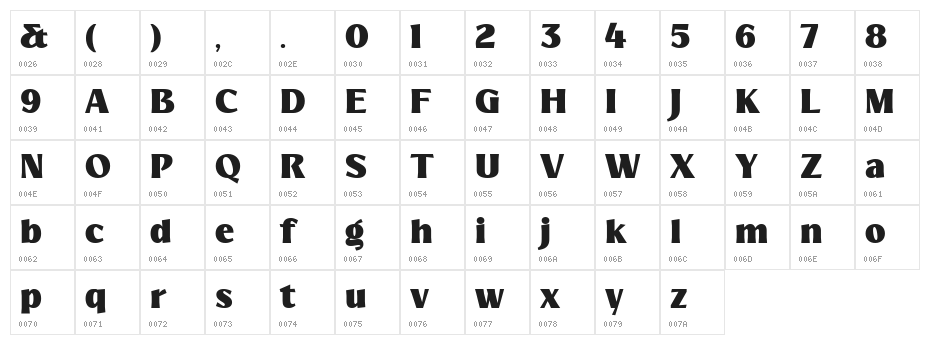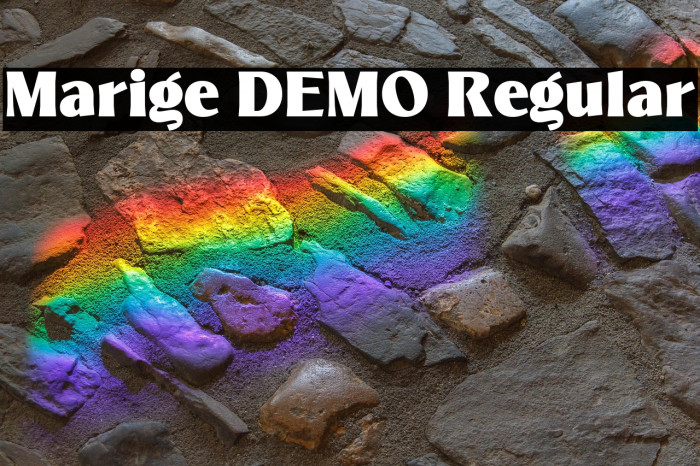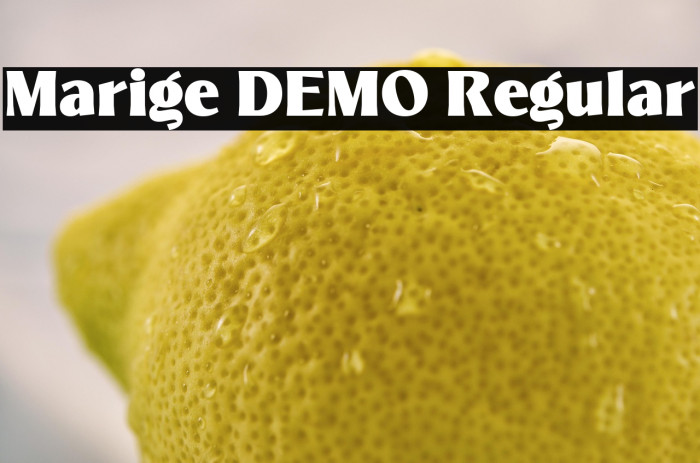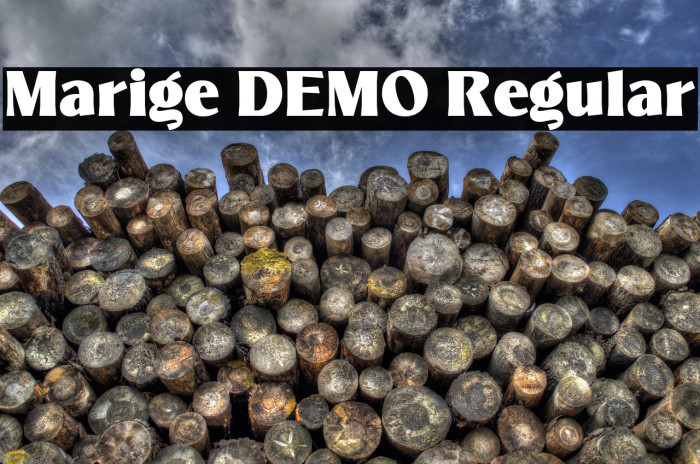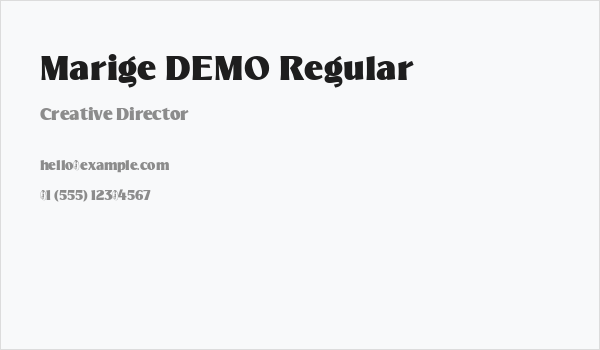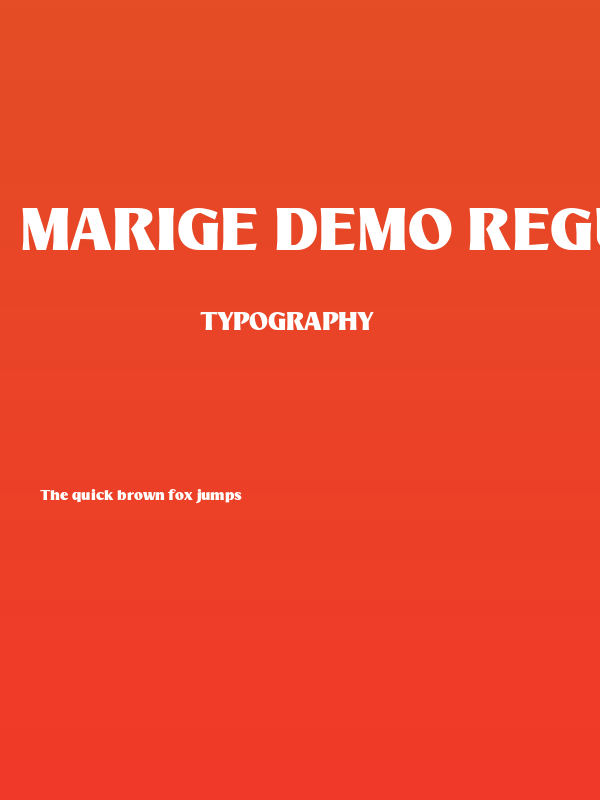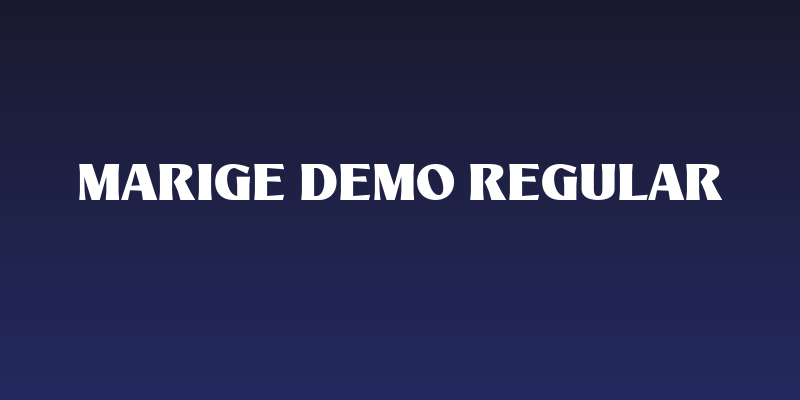
Marige DEMO Regular Font
Marige DEMO Regular Description
This font features bold, dramatic strokes with a strong presence, making it ideal for impactful designs. The uppercase letters are robust and commanding, while the lowercase letters maintain a consistent weight, offering a harmonious balance. The numerals are equally bold, ensuring clarity and emphasis. Special characters are designed with the same boldness, providing a cohesive look across all glyphs. The font's style is both modern and slightly decorative, with subtle curves and angles that add character without compromising readability.
| Proposed Projects | Ideal for headlines, posters, branding, and any design requiring a strong visual impact. |